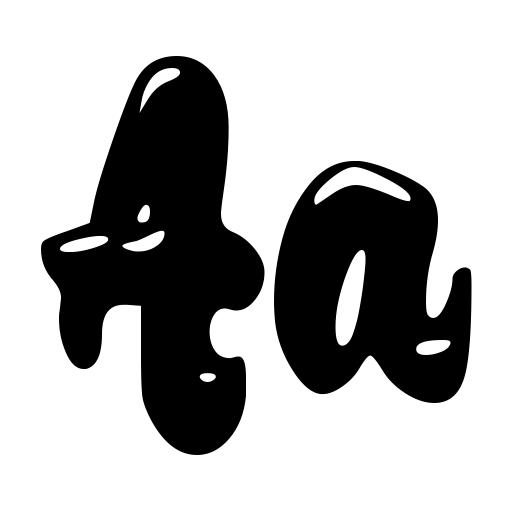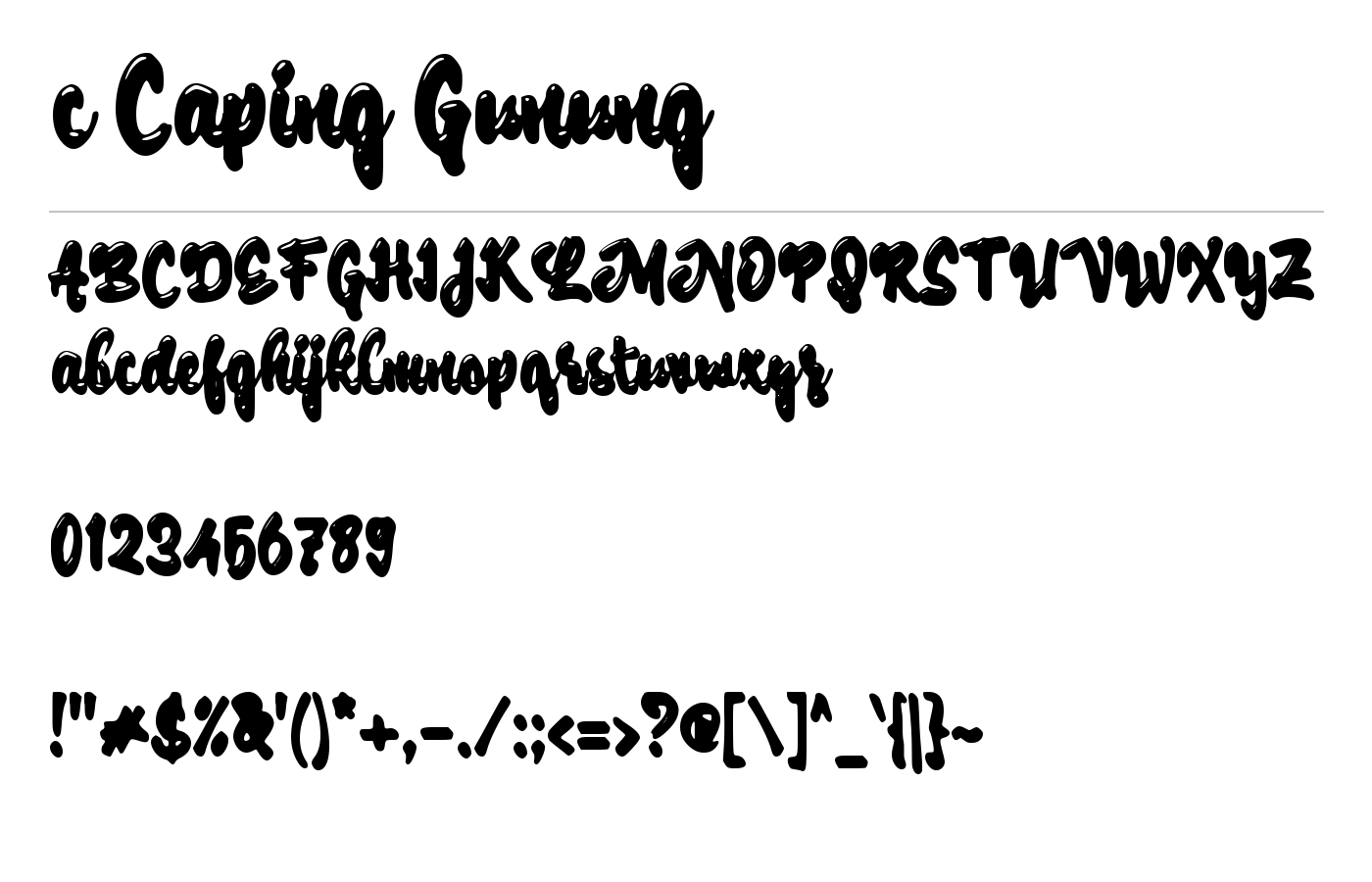
c Caping Gunung is a bold, playful script font with thick, rounded strokes that give it a fun and casual feel. Its organic, hand-drawn style and uneven letterforms make it perfect for creative projects, branding, or headlines that aim to convey friendliness and approachability. This font works well in packaging, posters, and informal digital content where personality and warmth are desired.
c Caping Gunung Font
About c Caping Gunung Font